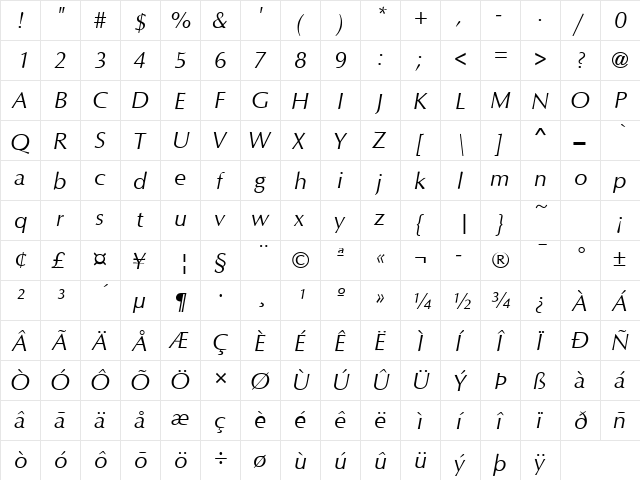
Opus Italic
Design Context for Opus Typeface
Opus offers clean, dependable letterforms without strong stylistic allegiance, making it a practical choice for designers who need flexibility. The dynamic lean of this cut emphasises speed and emphasis in any layout.
Pro Tip: Use Opus for emphasis, pull quotes, and subheadings where its slanted energy can add rhythm to the layout.